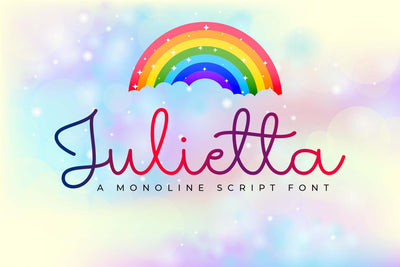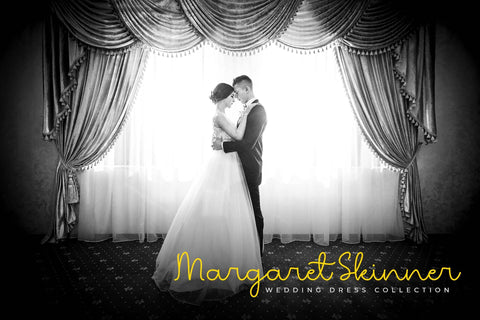
Julietta - A Monoline Script Font
Julietta is a monoline script font. This font carefully created with a touch of elegance. Whether you’re looking for fonts for Instagram or calligraphy scripts for DIY projects, this font will turn any creative idea into a true piece of art!